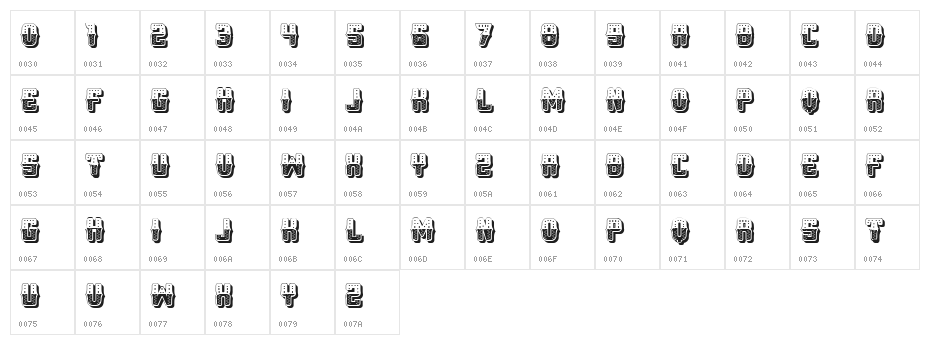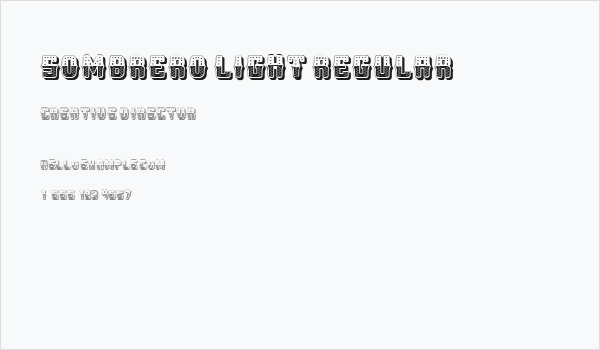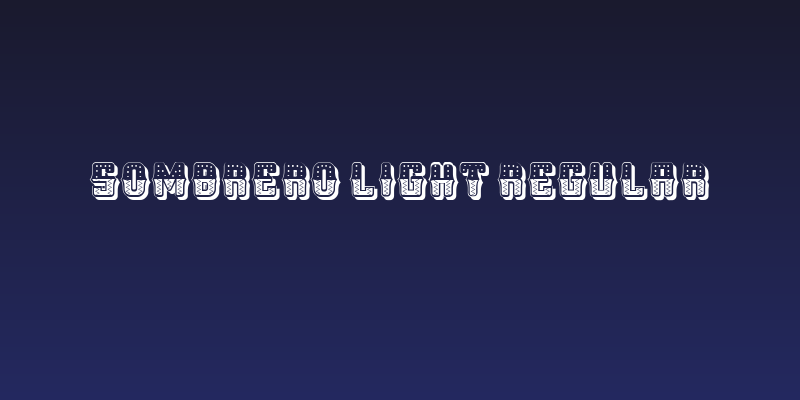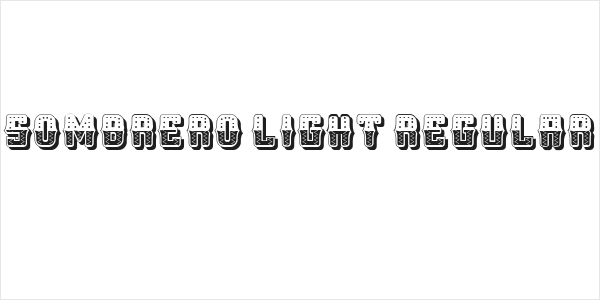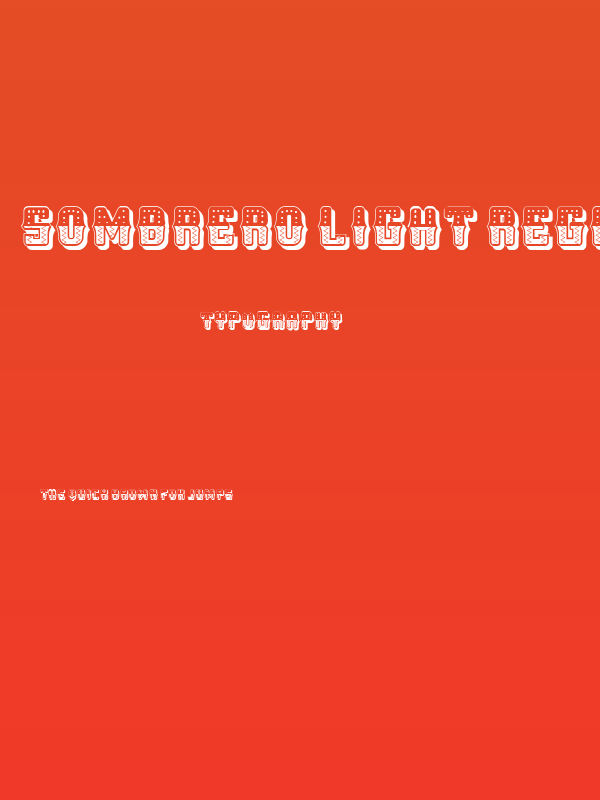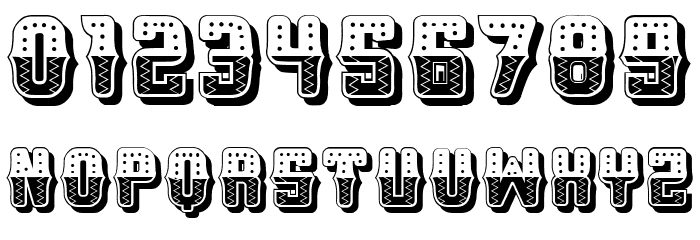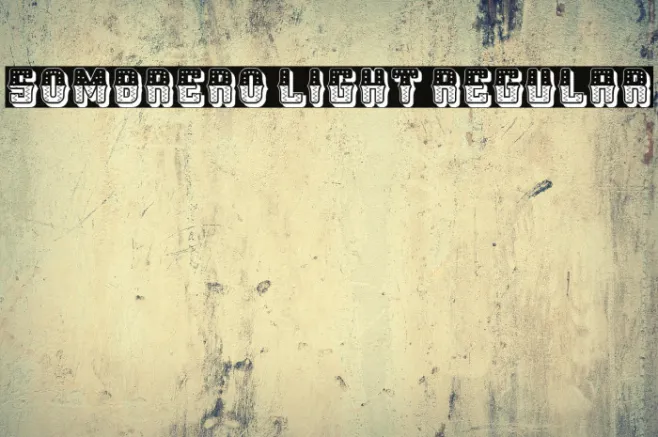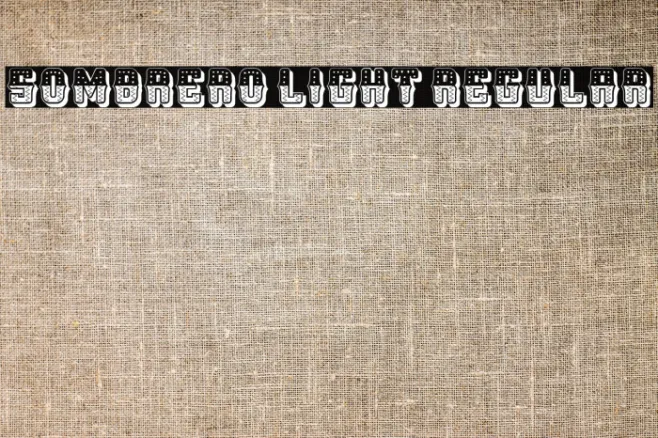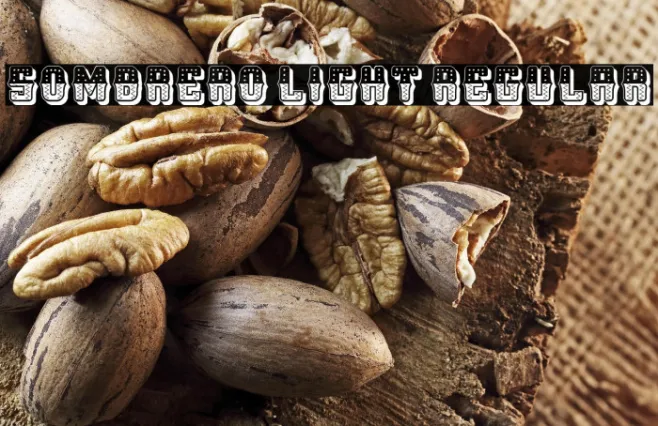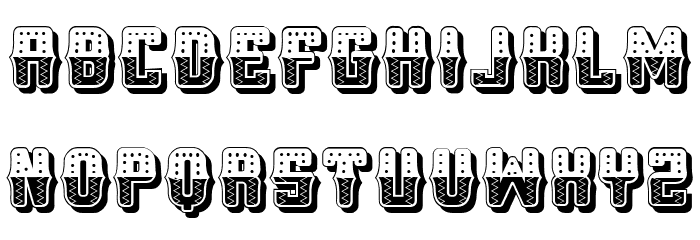
Sombrero Light Regular Font
Sombrero Light Regular Description
This font features a bold, decorative style with a playful and festive appearance. Each character is outlined with a thick black shadow, adding depth and a three-dimensional effect. The interior of the letters is filled with intricate patterns, including dots and zigzags, which contribute to its lively and dynamic look. The font maintains a consistent height and width across all characters, ensuring uniformity. Its unique design makes it stand out, perfect for eye-catching displays and creative projects.
| Proposed Projects | Ideal for party invitations, festive banners, posters, and any project requiring a lively and eye-catching typeface. |